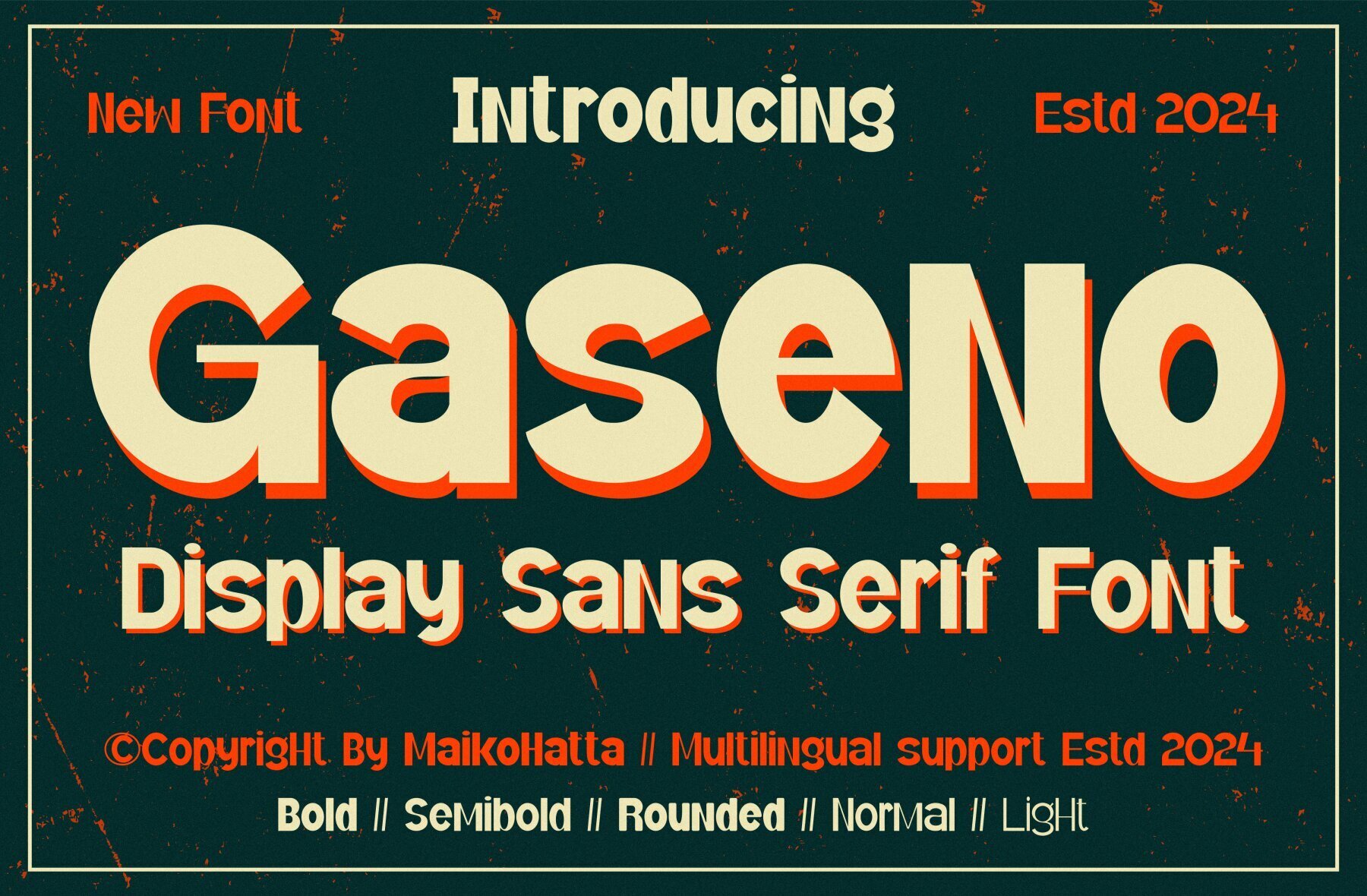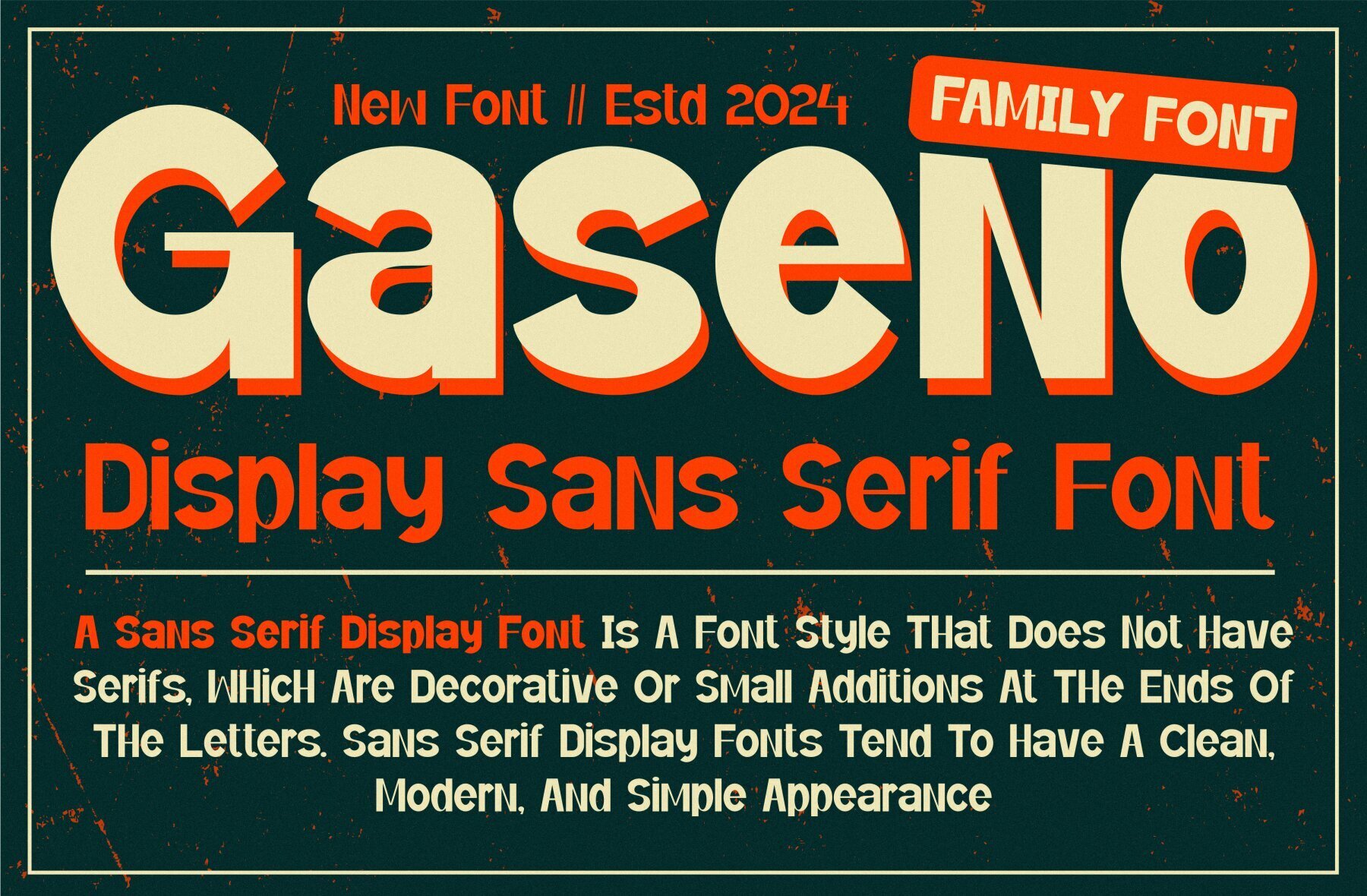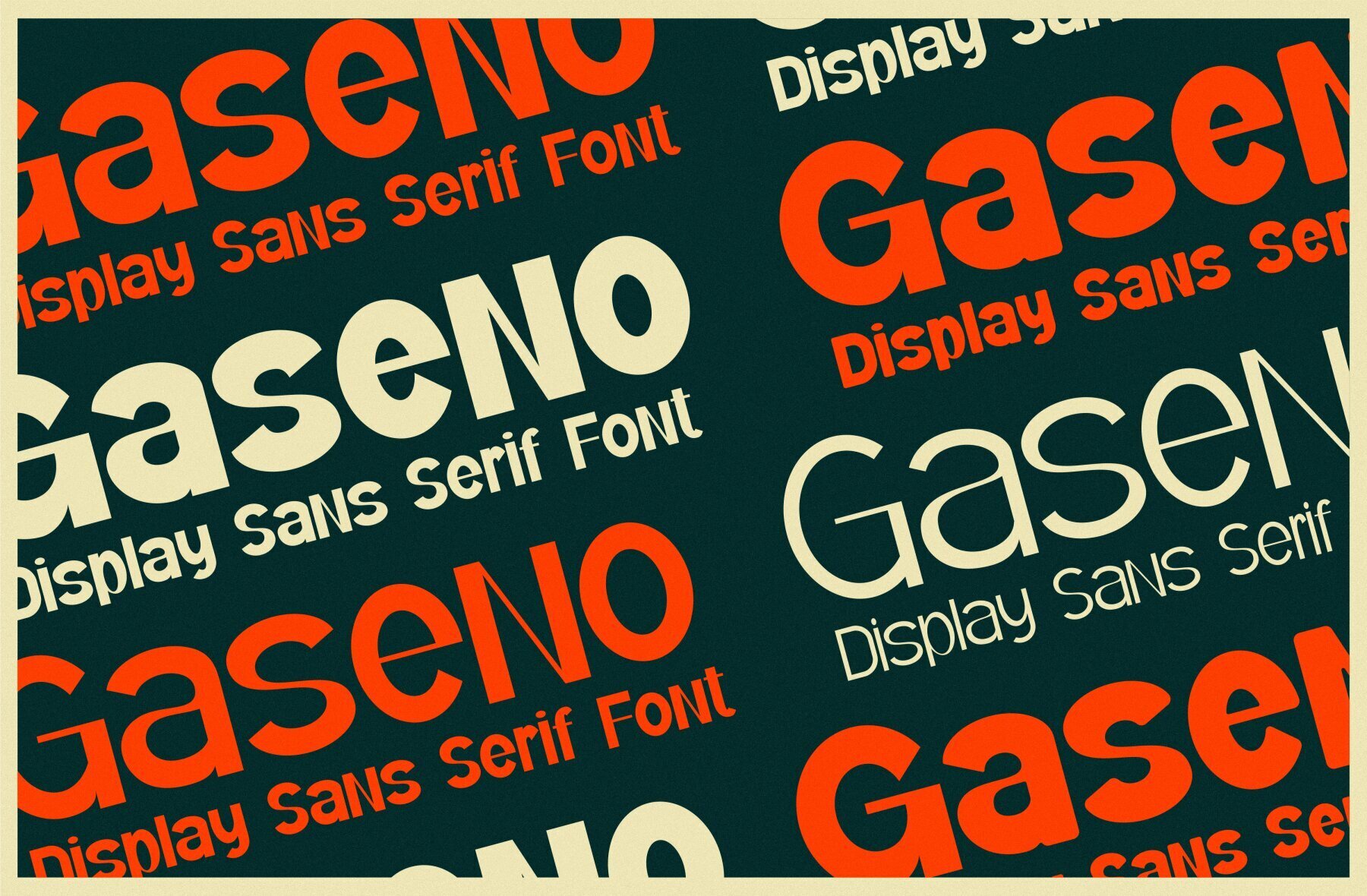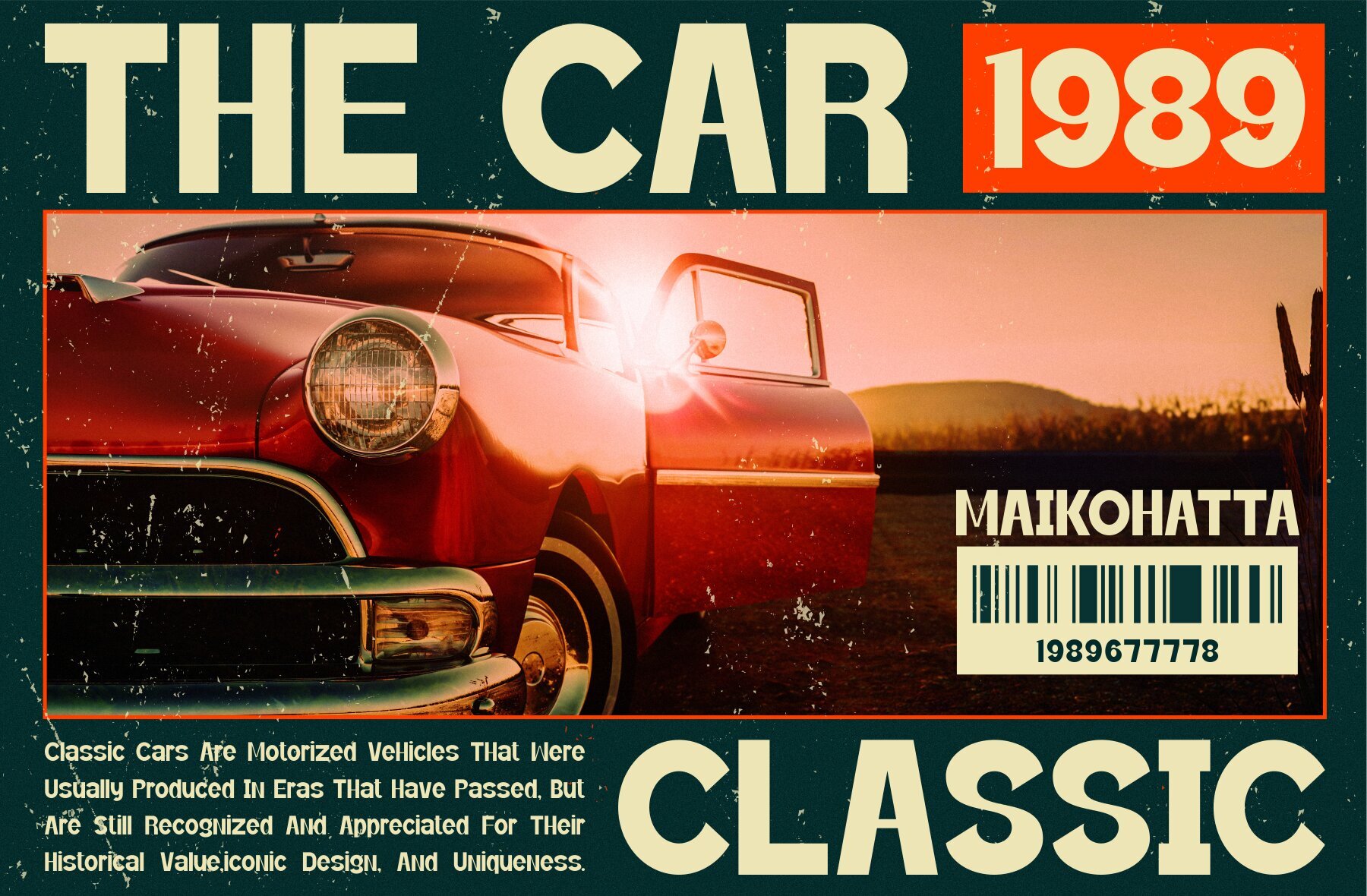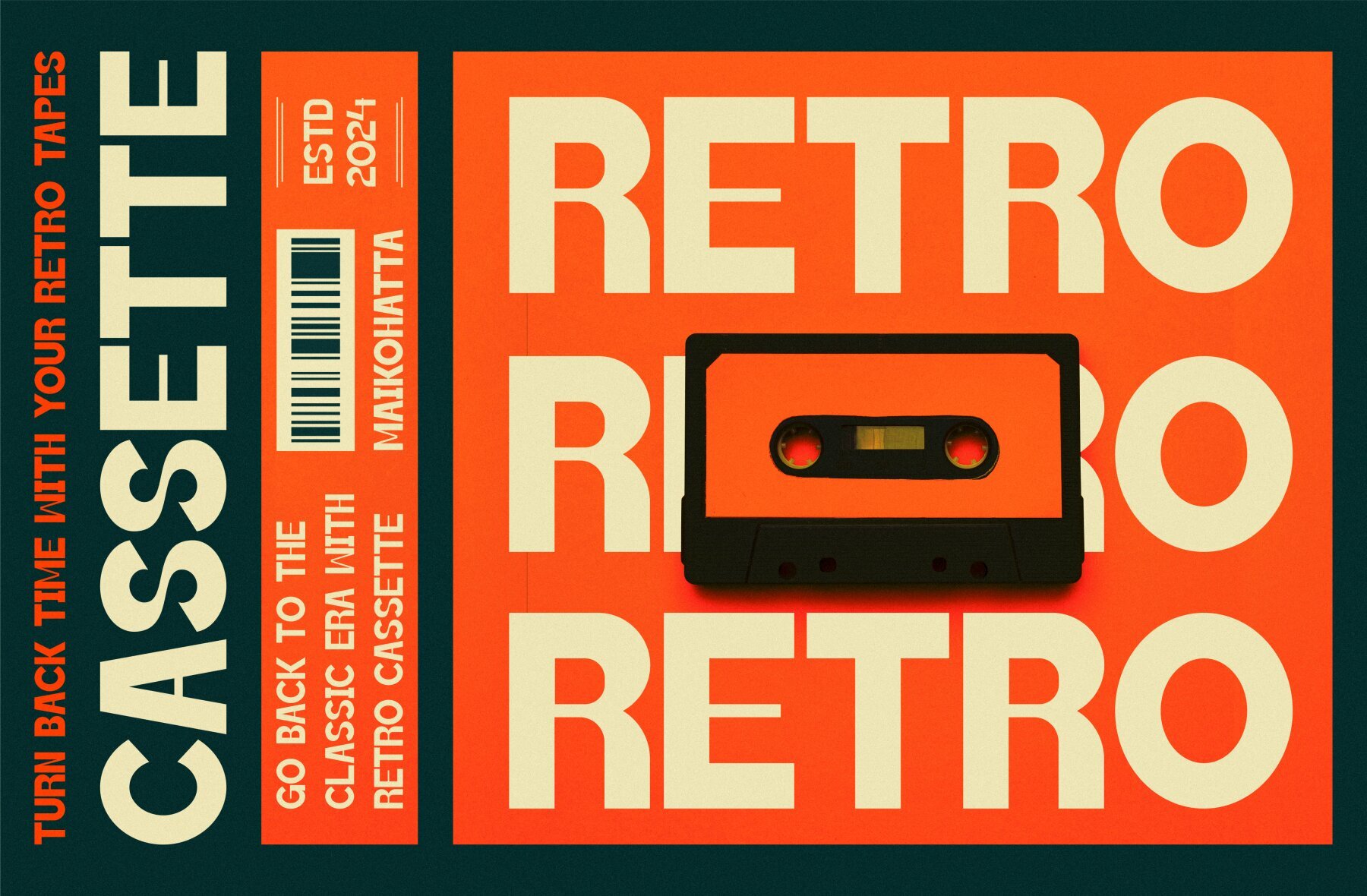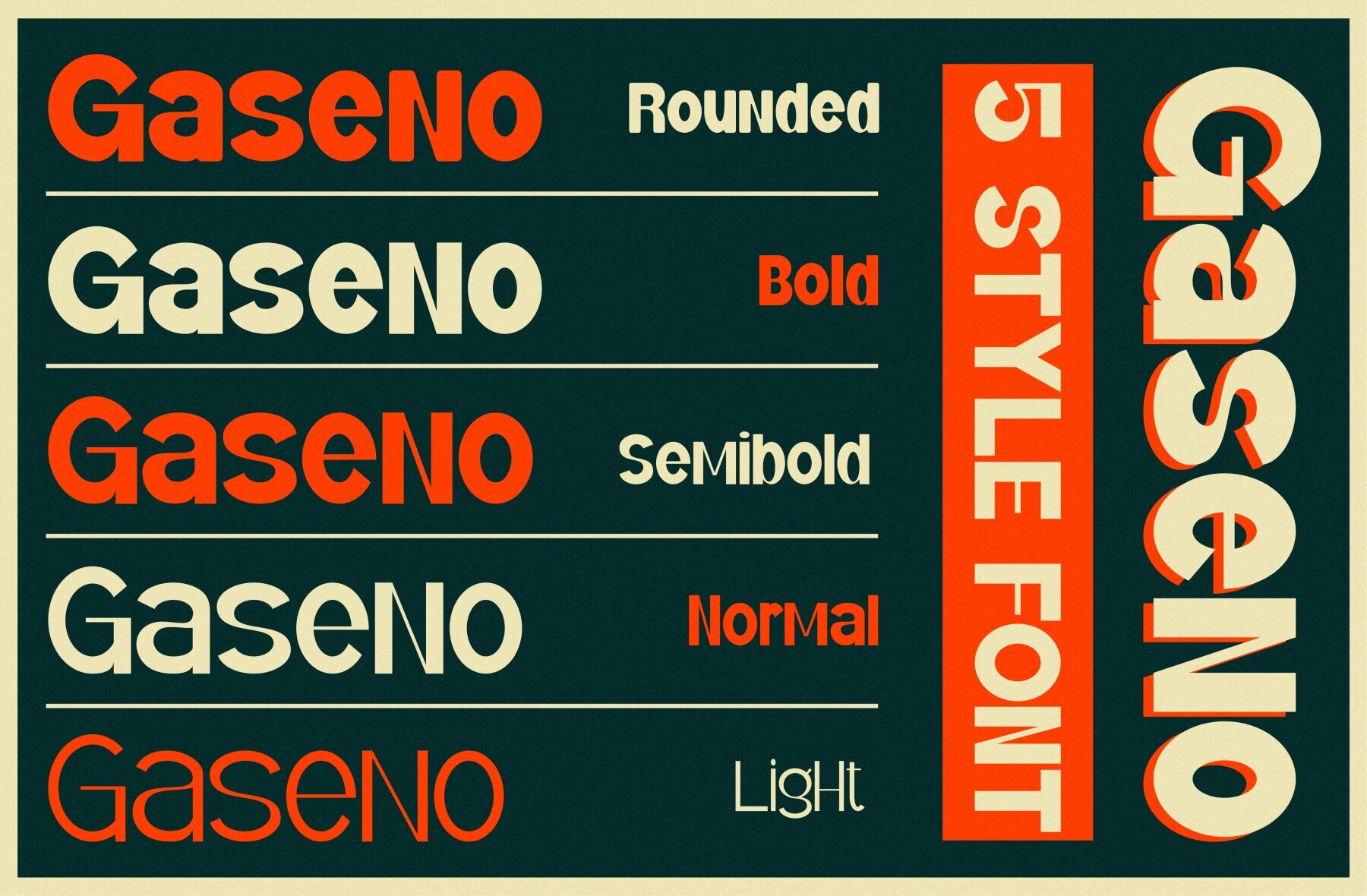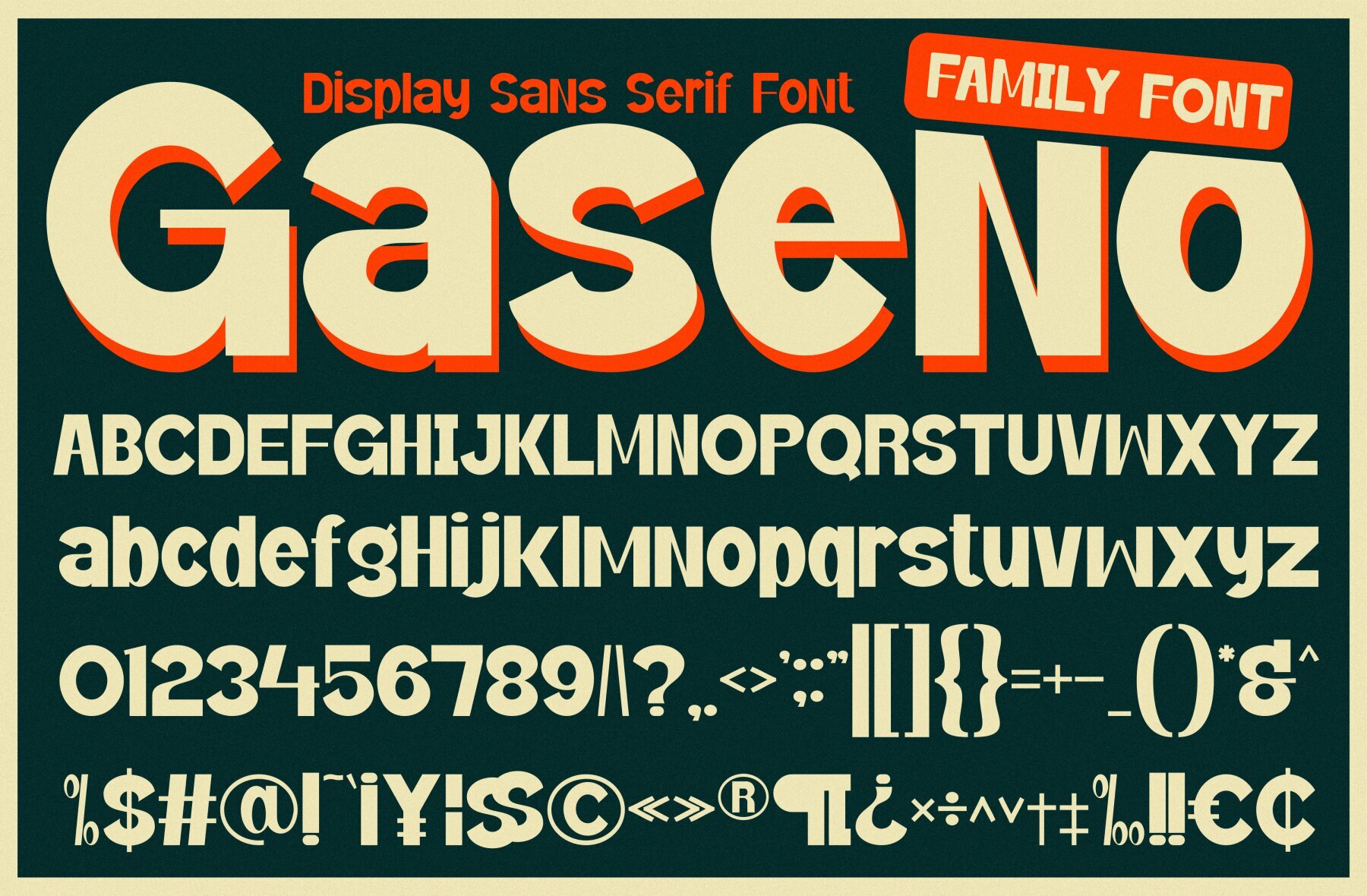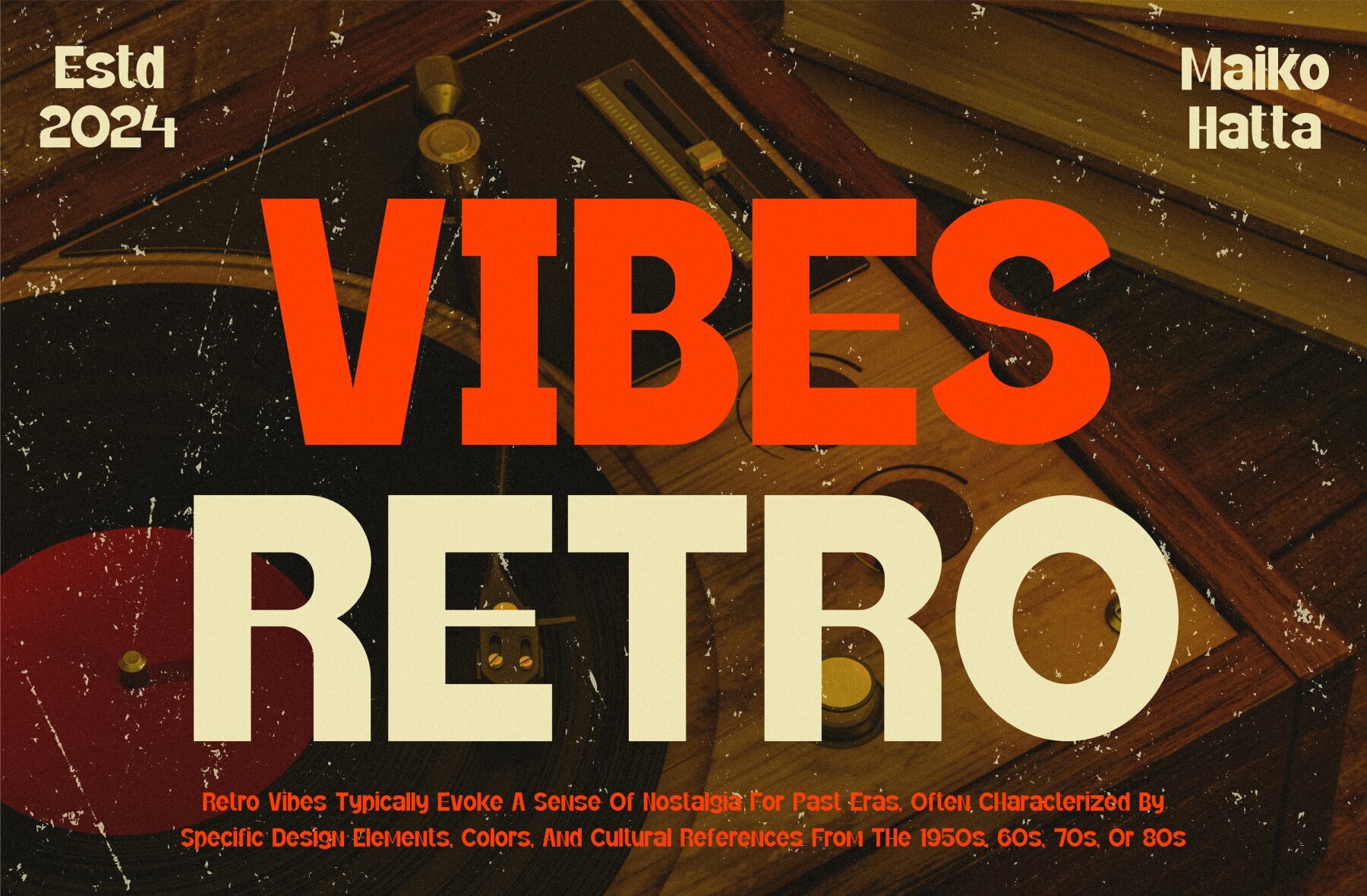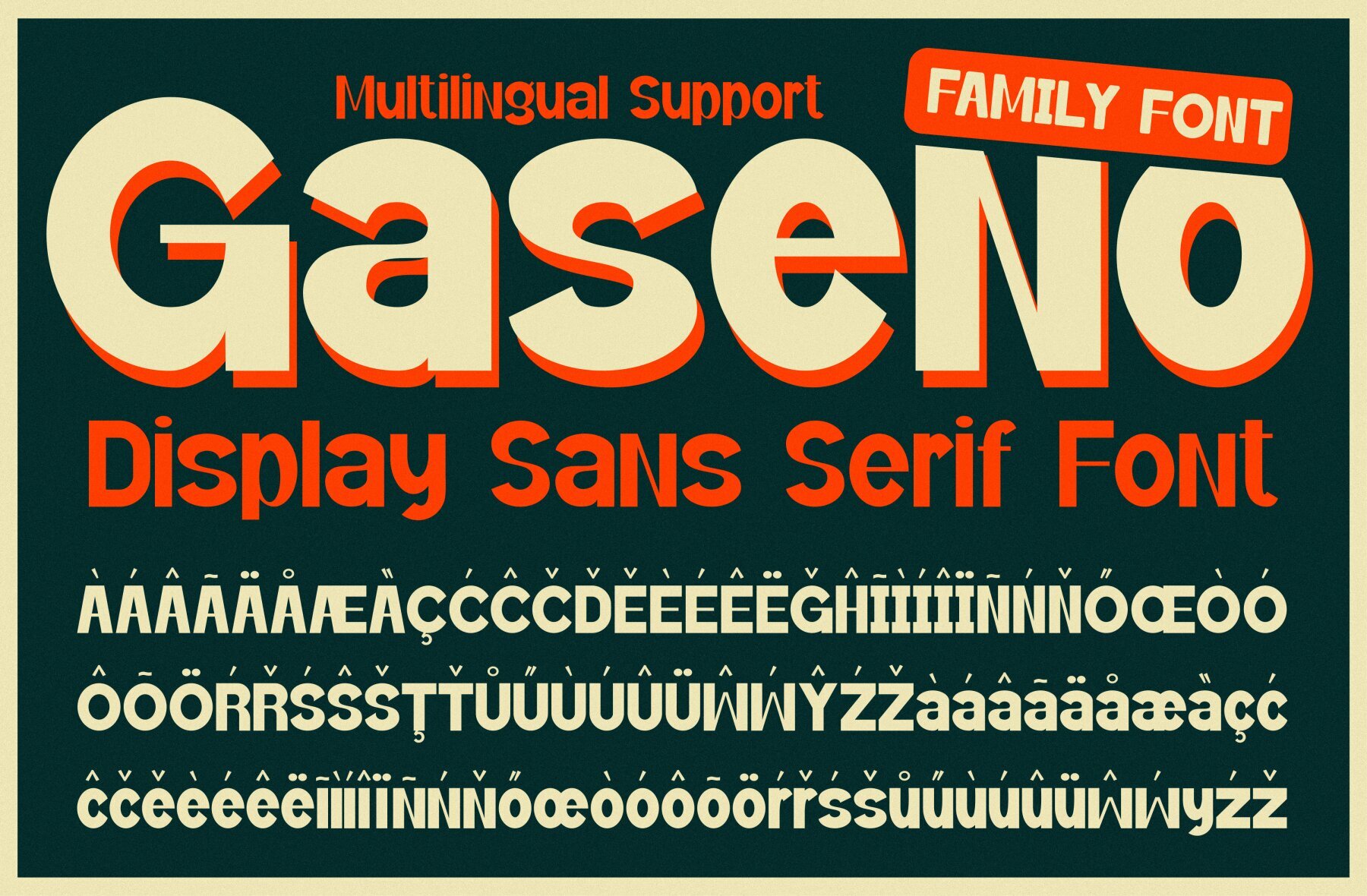
Gaseno Font
Gaseno is a versatile sans-serif font family that offers a modern look with its clean lines and various styles. This font is perfect for graphic design projects and text displays, offering flexible design solutions tailored to your specific needs.Gaseno Display: A Versatile Sans Serif Font